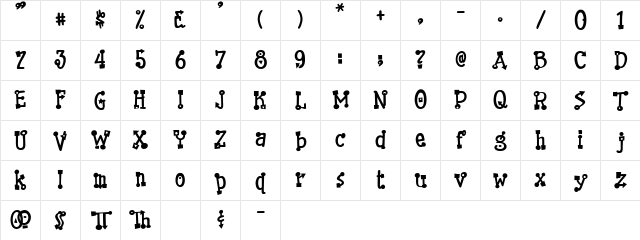
0 Bills Holiday DNA Regular Free Font
0 Bills Holiday DNA Regular
Design Context for 0 Bills Holiday DNA
0 Bills Holiday DNA is a composed and adaptable typeface that performs quietly and consistently across a wide range of design contexts.